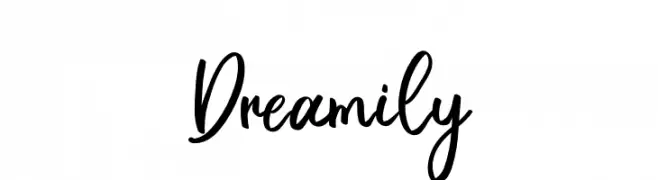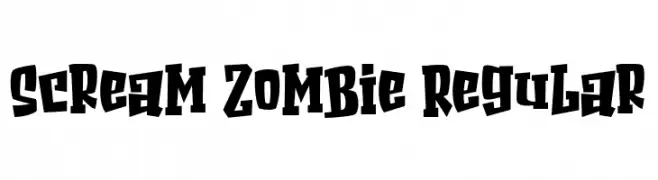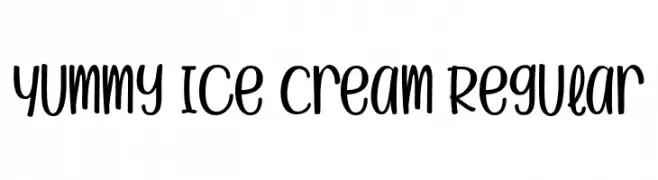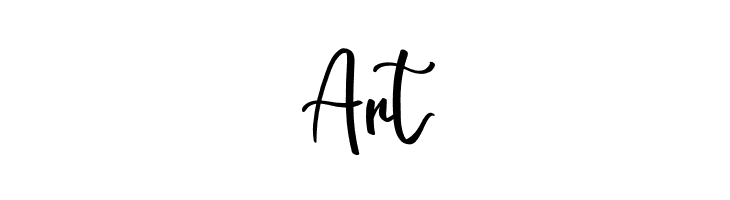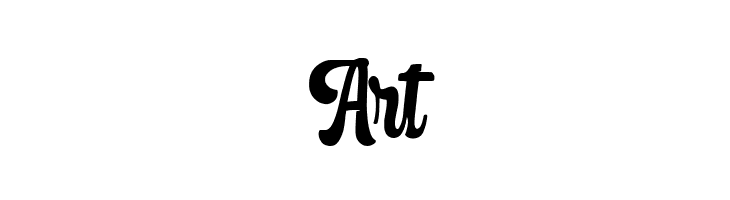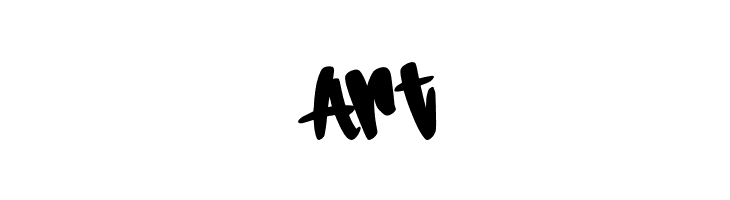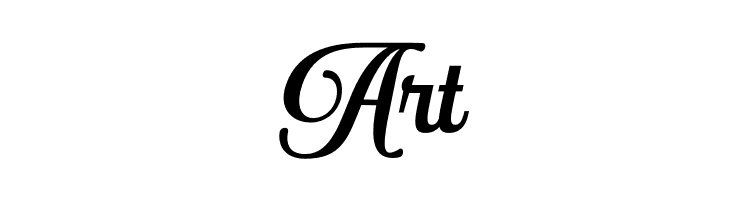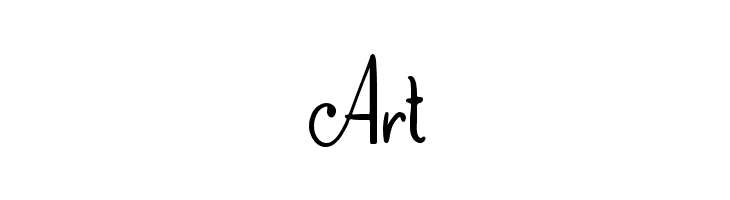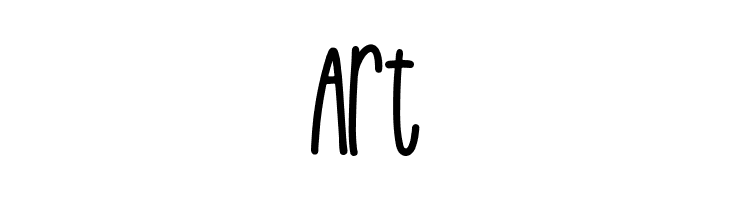
A bold, horror-themed font with sharp, angular edges and a distressed appearance.
A playful and whimsical cursive font with bold, flowing letters.
A playful, handwritten font with bold, rounded characters and a whimsical style.
A bold, playful script font with flowing, cursive letterforms.
A bold, playful font with a 3D extruded effect and tight spacing.
A bold, graffiti-inspired font with a dynamic and playful style.
An elegant and flowing script font with ornate uppercase and smooth lowercase letters.
A whimsical and decorative font with curly, flowing letterforms.
A playful, hand-drawn font with tall, narrow characters and a whimsical style.
A playful, bold font with a hand-drawn, whimsical style.